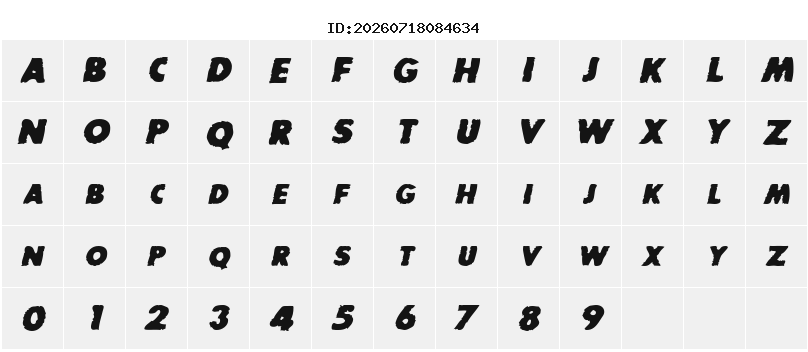
• Font Name: ChampionCaps
• Full Font Name: ChampionCaps Bold Italic
About ChampionCaps.ttf
ChampionCaps.ttf is a modern, elegant sans-serif font designed for ultimate readability and visual harmony. Perfect for branding, headlines, web design, and print materials.